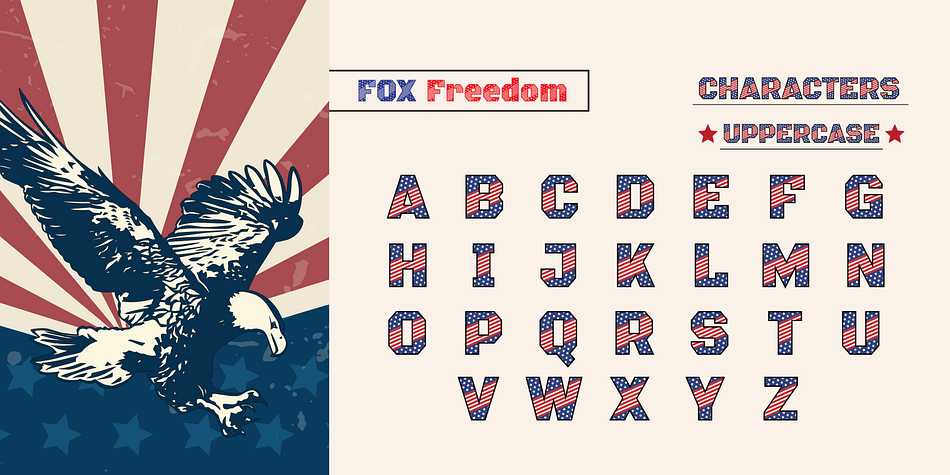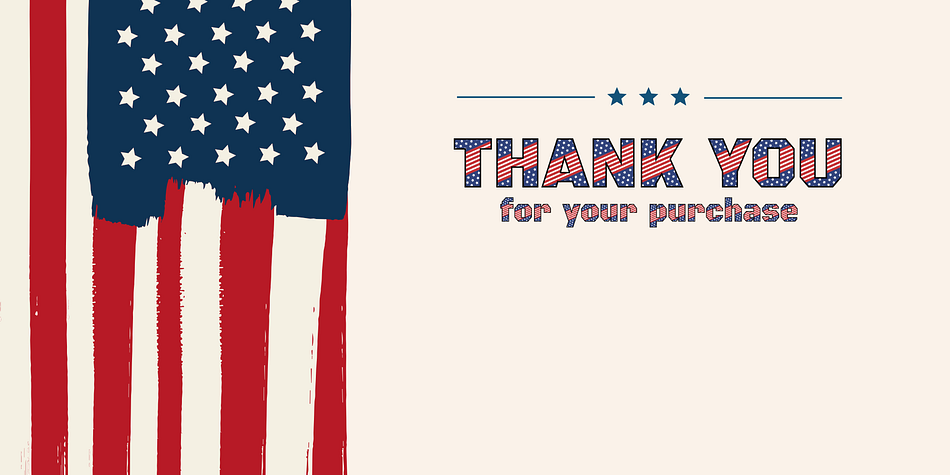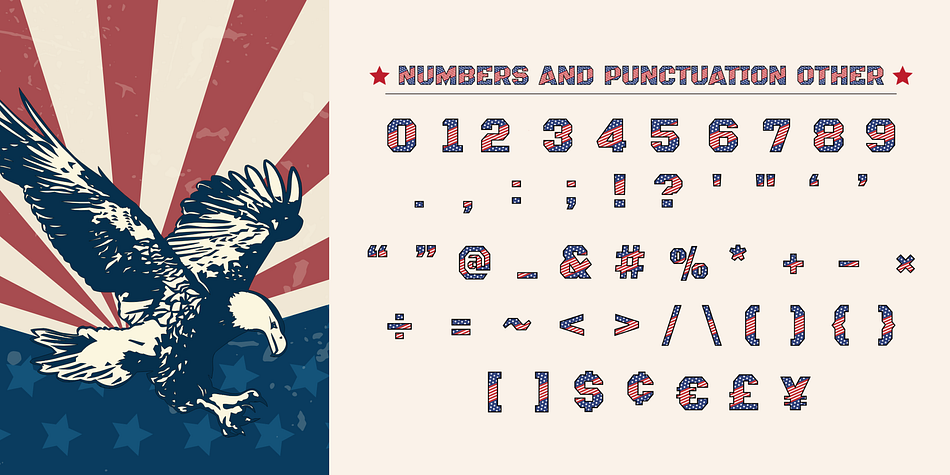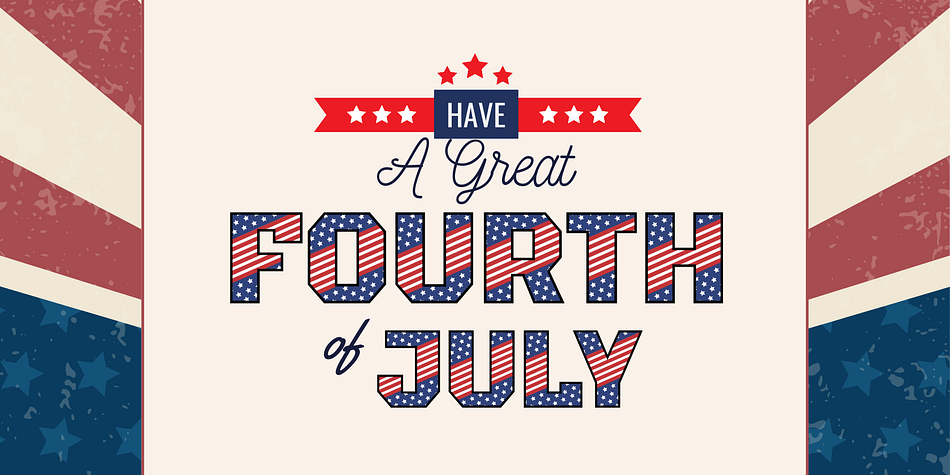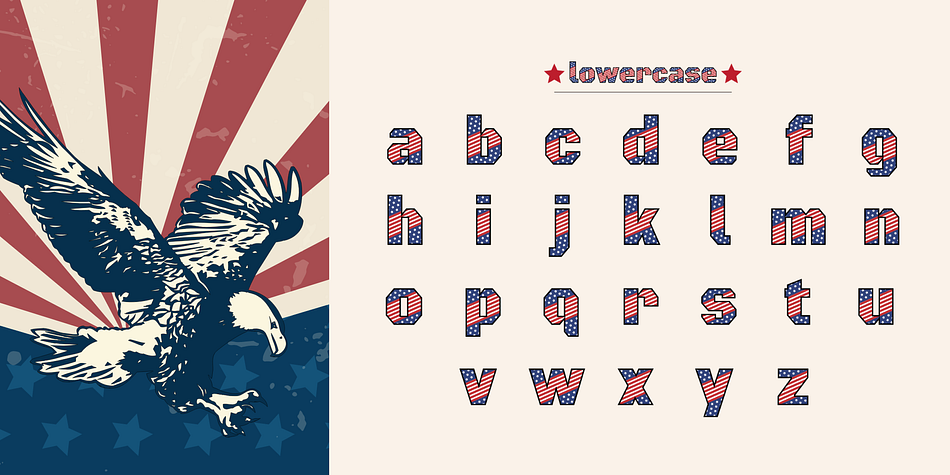
Fox Brave Color Font
Designed by Rattana Rattanawan, Fox Brave Color Font is a display font family. This typeface has two styles and was published by Fox7.
Fox Brave is a Color font that has a stars and stripes pattern in the letters. This decorative font is perfect for projects that celebrate American culture, history, or events such as Independence Day, Veterans Day, or Memorial Day. It can be used to create impactful headlines, banners, or signage, infusing a sense of national pride and identity into any design.
Designer Rattana Rattanawan